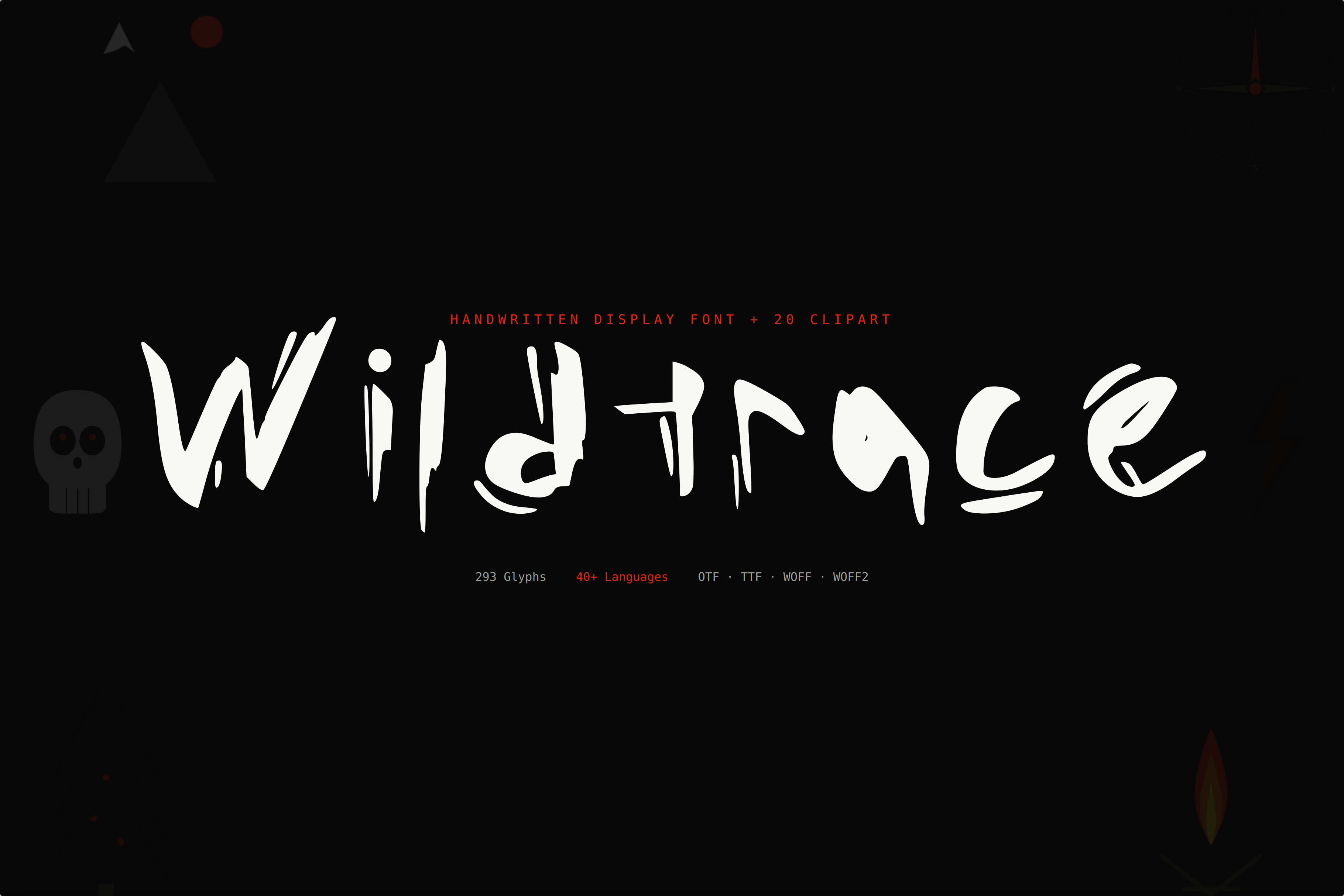
Wildtrace — Handwritten Display Font
Introducing Wildtrace — a raw, energetic handwritten font with 293 glyphs, 40+ language support, and 20 bonus illustrations included. Every letter carries the velocity of quick sketches, trail markers, and titles that refuse to sit still.
This is not a polished, delicate typeface. Wildtrace is for brands that move, create, and take up space.
Wildtrace Font
- 293 carefully crafted glyphs — one of the most complete handwritten sets available
- Full uppercase & lowercase
- Numerals, punctuation & symbols
- Extensive extended Latin character set